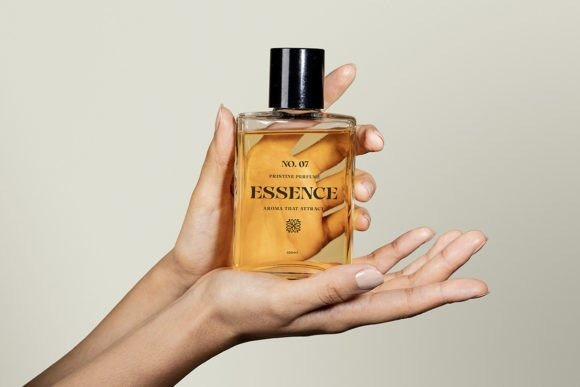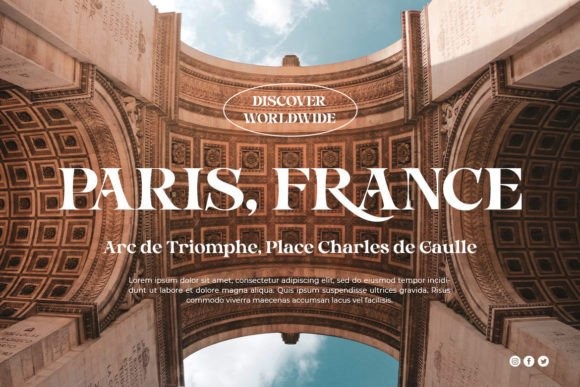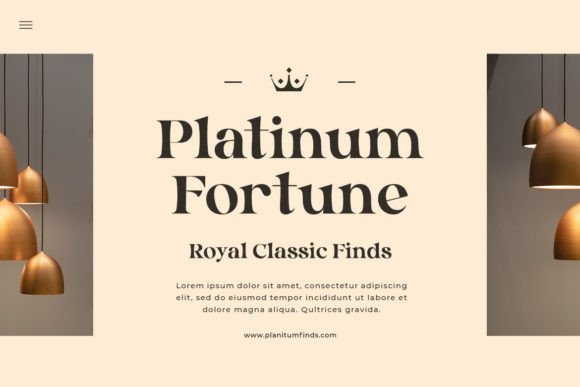
Barnice Font
Barnice Serif Font is a modern serif typeface created by TypeFactory with a unique font. This font will be an incredible asset to your fonts’ library, as it has the potential to elevate any creation. This customizable font will look great on a variety of design ideas such as, inding styles, high contrast and light weight fonts perfect for feminine logo signs, fashion & editorial design heads, Clothing Branding, packaging, magazine titles, advertisements, T -shirts, postcards, valentines, posters, invitations, magazines, book covers and more!